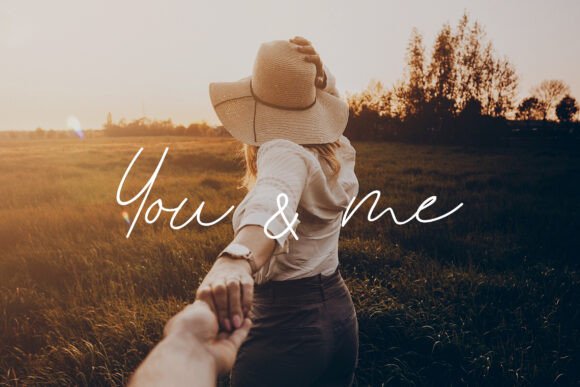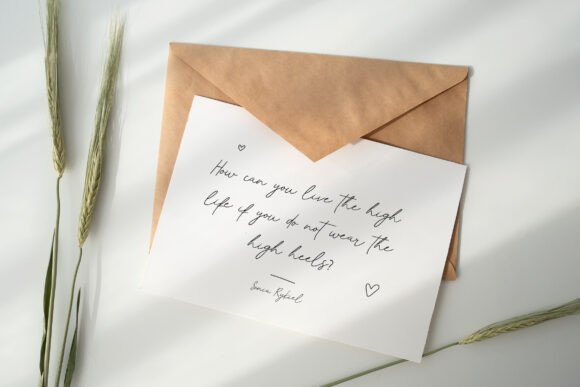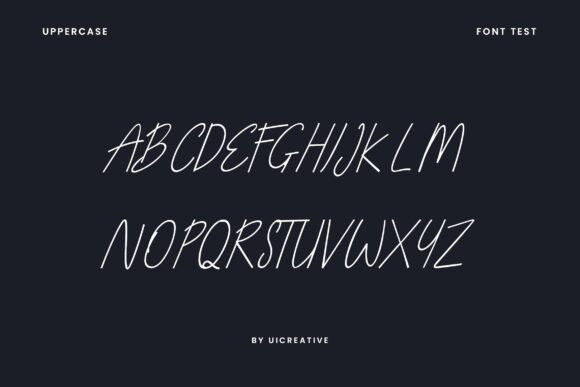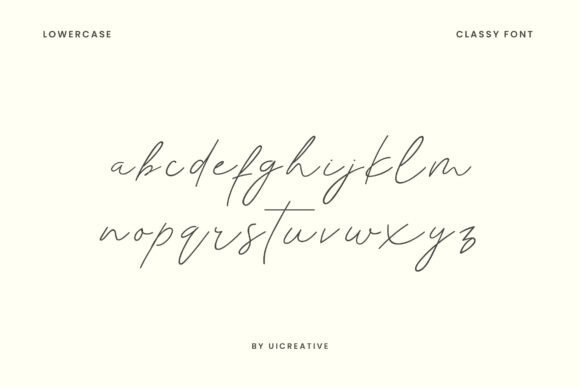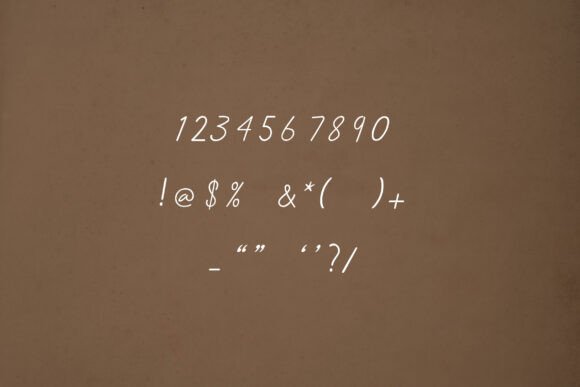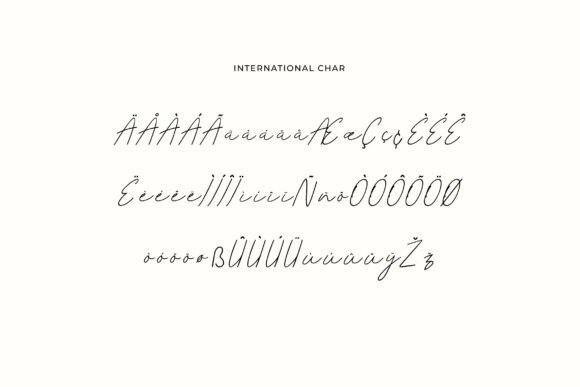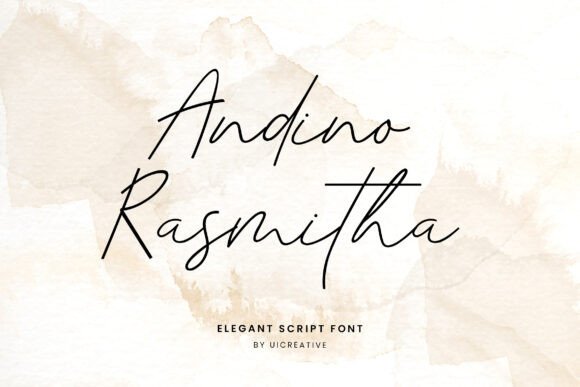
Introducing Andino Rasmitha: The Elegant Script Font for Sophisticated Designs
In the world of typography, a well-crafted font can elevate a design from ordinary to extraordinary. For designers and crafters seeking a font that exudes elegance, sophistication, and style, Andino Rasmitha is an exceptional choice. This beautiful script font is designed to add a touch of class and refinement to a wide range of projects, from signature and stationery to logo design, wedding typography, and more.
The Essence of Andino Rasmitha: Elegance and Versatility
Andino Rasmitha is more than just a font; it’s a design statement. Its elegant script style feels both beautiful and classy, making it ideally suited for projects that demand a high level of sophistication. Whether you’re working on a logo, magazine cover, website header, or branding materials, Andino Rasmitha brings a level of refinement that is hard to match. Its versatility is one of its standout features, capable of adapting to various design needs while maintaining its elegant demeanor.
Ideal for a Wide Variety of Projects
The applications of Andino Rasmitha are vast and varied. Here are some of the areas where this elegant script font truly shines:
- Signature and Stationery: Add a personal touch to your letters, notes, and official documents.
- Logo Design: Create memorable and stylish logos that stand out.
- Wedding Typography: Bring elegance to wedding invitations, banners, and ceremony decor.
- Typography Quotes: Highlight inspiring quotes with a touch of sophistication.
- Magazine or Book Covers: Capture the essence of your publication with a stylish cover.
- Website Headers: Elevate your website’s design with elegant headers.
- Branding: Enhance your brand’s visual identity with a classy font.
Balancing Masculine and Feminine Qualities
One of the unique aspects of Andino Rasmitha is its ability to display both masculine and feminine qualities, making it exceptionally versatile for fashion-related branding or editorial design. This balance ensures that the font can be used in a variety of contexts without leaning too heavily towards any particular style. Whether your design requires a soft, elegant touch or a bold, assertive statement, Andino Rasmitha adapts seamlessly.
Why Choose Andino Rasmitha?
With so many fonts available, why choose Andino Rasmitha for your next project? Here are a few compelling reasons:
- Elegance: It brings a level of sophistication that is hard to find in other fonts.
- Versatility: Suitable for a wide range of projects, from digital to print.
- Uniqueness: Stands out with its unique blend of elegance and style.
- Masculine and Feminine Appeal: Appeals to a broad audience with its balanced design.
Andino Rasmitha is not just a font; it’s a design tool that can transform your projects with its elegance, style, and versatility. Whether you’re a designer looking to elevate your client’s branding or a crafter seeking the perfect font for your handmade products, Andino Rasmitha is an excellent choice. Its ability to convey both masculine and feminine qualities makes it uniquely adaptable to various design needs. Experience the difference that a truly elegant script font can make in your designs with Andino Rasmitha.